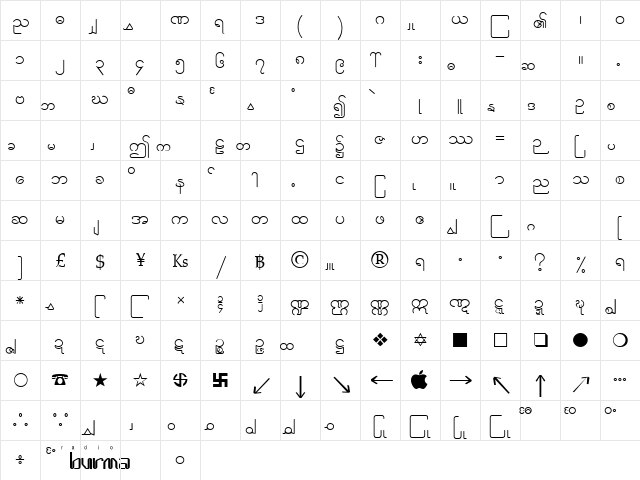
WwinBurmese Normal
Design Context for WwinBurmese Typeface
WwinBurmese takes a measured approach to typography — its balanced proportions and neutral character make it a reliable workhorse for both digital and print work.